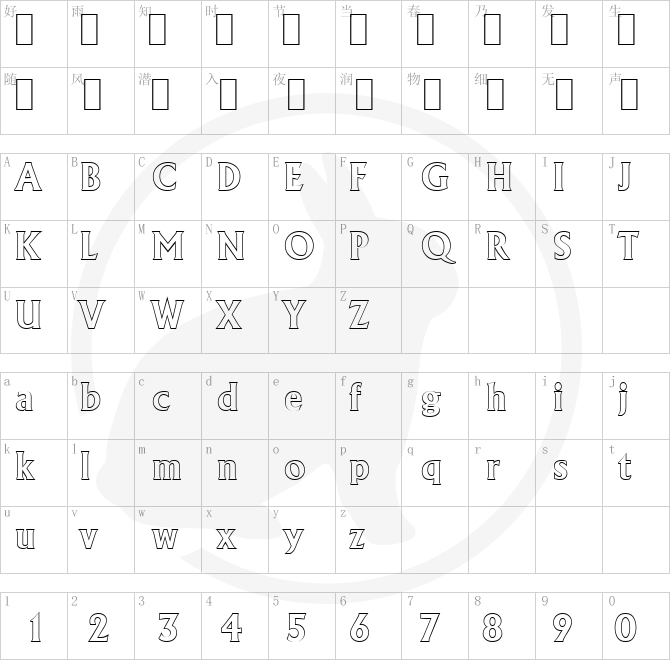
- Font Name:JacobBeckerOutline
JacobBeckerOutline-Bold.ttf is a very beautiful artistic font, JacobBeckerOutline-Bold.ttf is widely used in the design and printing of various books and pictures,JacobBeckerOutline-Bold.ttf has a strong visual impact,JacobBeckerOutline-Bold.ttf is a commonly used font in newspapers, magazines and books, and is used in posters, e-commerce Poster design, store design, logo design, font design and other fields.JacobBeckerOutline-Bold.